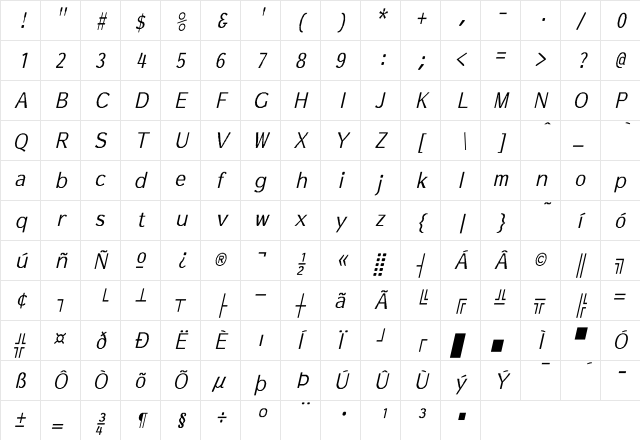
Essay-Normal Th It Italic
Design Context for Essay-Normal Th It Typeface
Essay-Normal Th It takes a measured approach to typography — its balanced proportions and neutral character make it a reliable workhorse for both digital and print work. Its italic angle brings a sense of urgency and motion to the letterforms.
Pro Tip: Use Essay-Normal Th It for emphasis, pull quotes, and subheadings where its slanted energy can add rhythm to the layout.